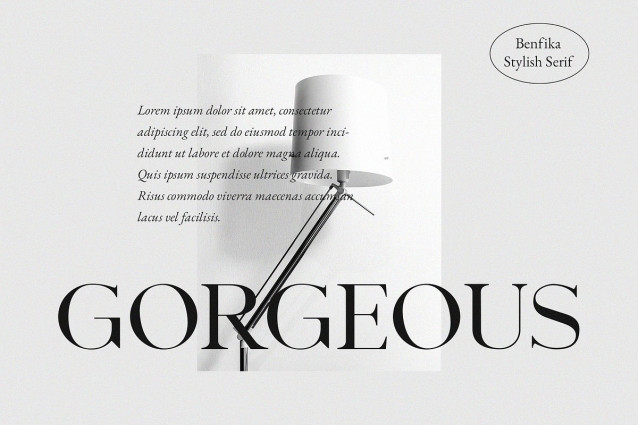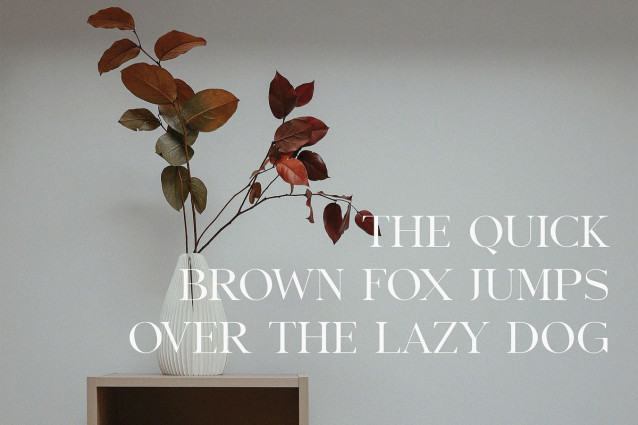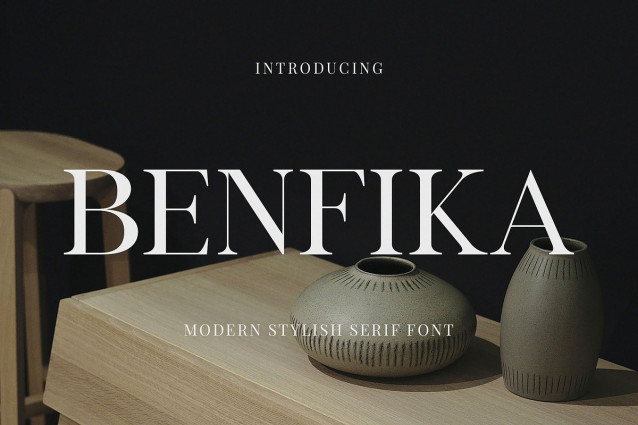
Benfika Font
Benfika Font, modern serif font with elegant style this is perfect for branding, logos, invitation, magazines, product packaging and more.